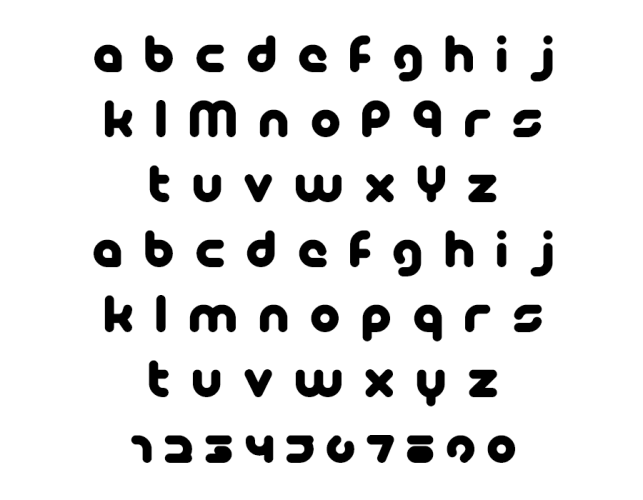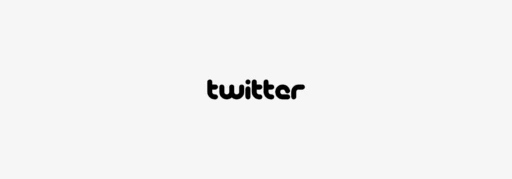
Twitter Font
Twitter Font is inspired by the simple and friendly lettering used in the Twitter logo. Its rounded edges and clean shapes give a modern, approachable feel that fits soc…
Twitter Font is inspired by the simple and friendly lettering used in the Twitter logo. Its rounded edges and clean shapes give a modern, approachable feel that fits social media and tech branding. Designers use this font for digital projects, app interfaces, and marketing materials that need clarity and connection.
Where Twitter Font works best
Twitter Font is built for size: event posters, hero headlines and billboard-style layouts.
High contrast display type like Twitter Font reads instantly in thumbnails and motion graphics.
What is Twitter Font good for?
Twitter Font is a Display Fonts typeface tagged Branding, Clean, Display, Display Fonts. It works well for headlines, logos, posters, social media graphics and branding projects that need a distinctive display fonts look.